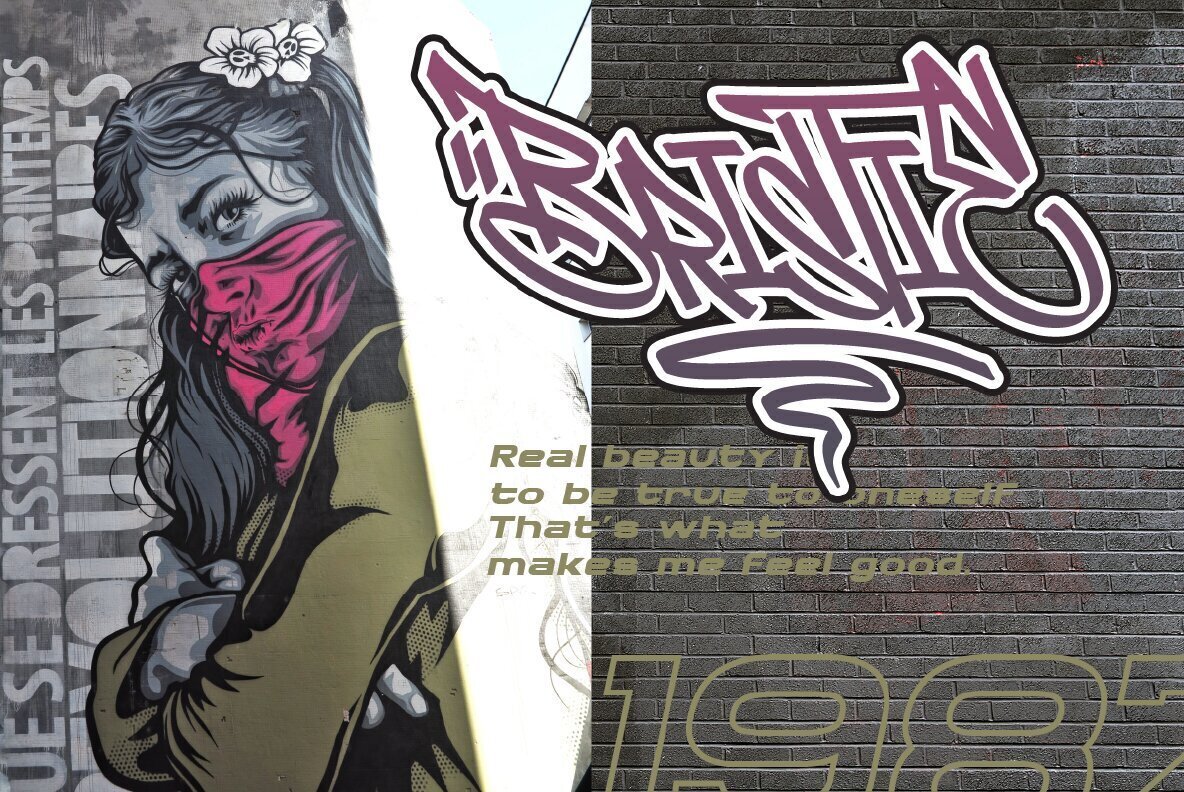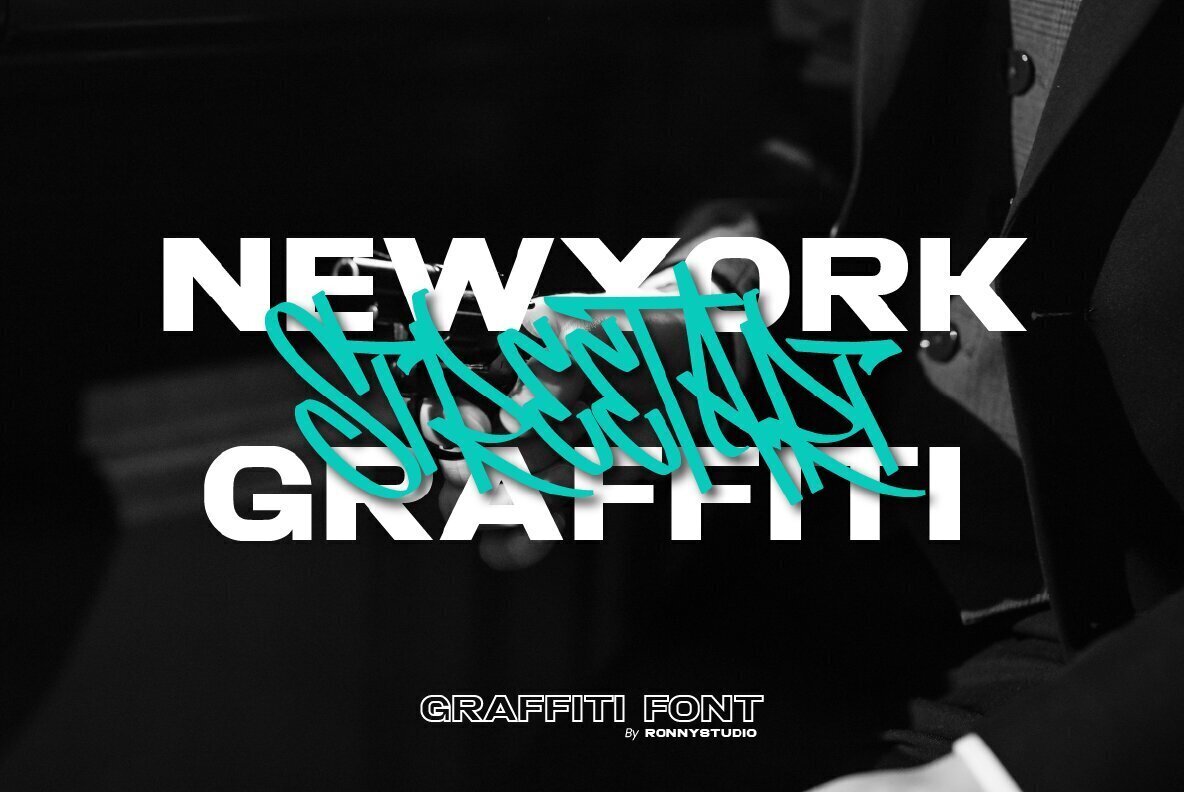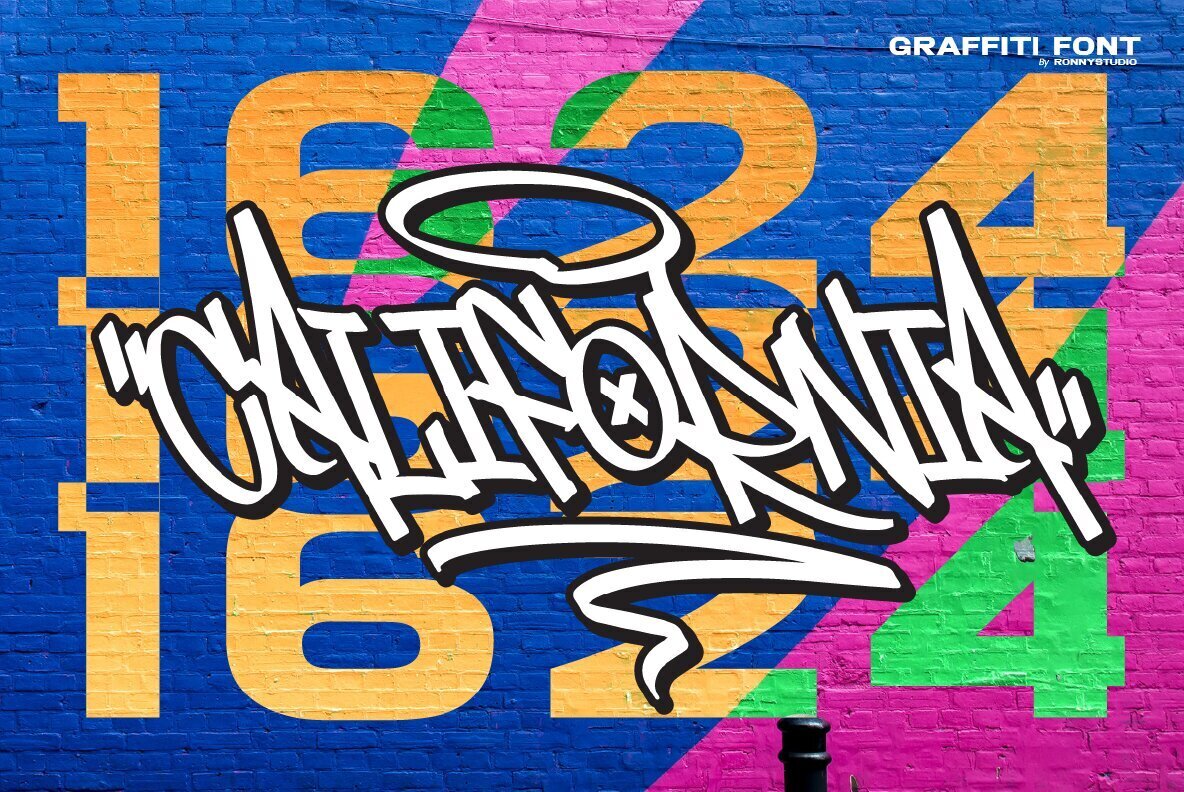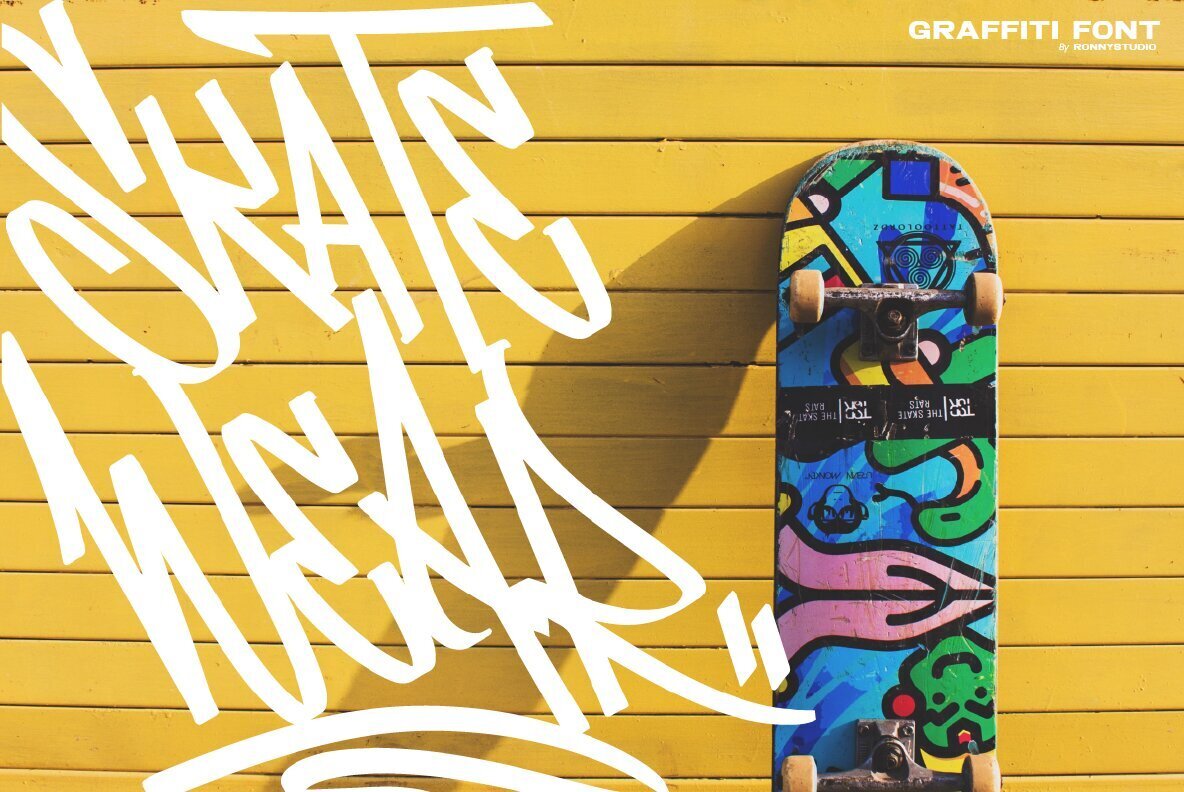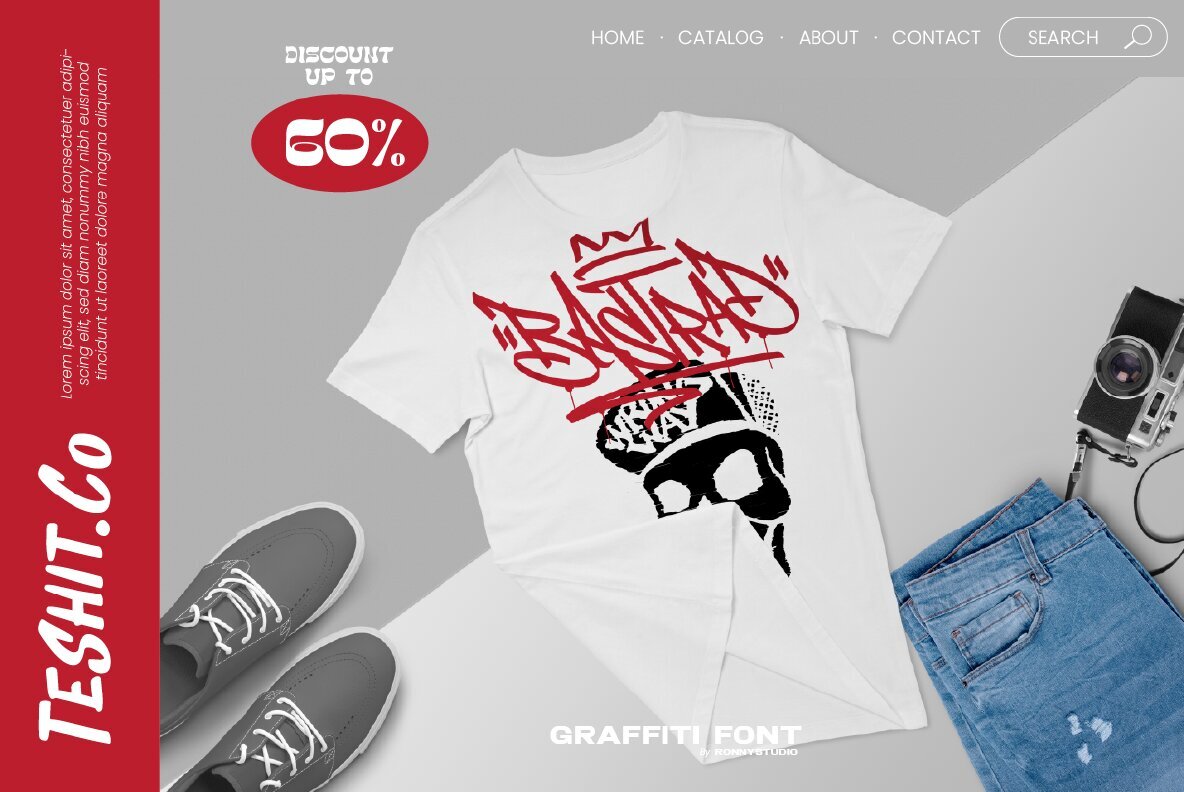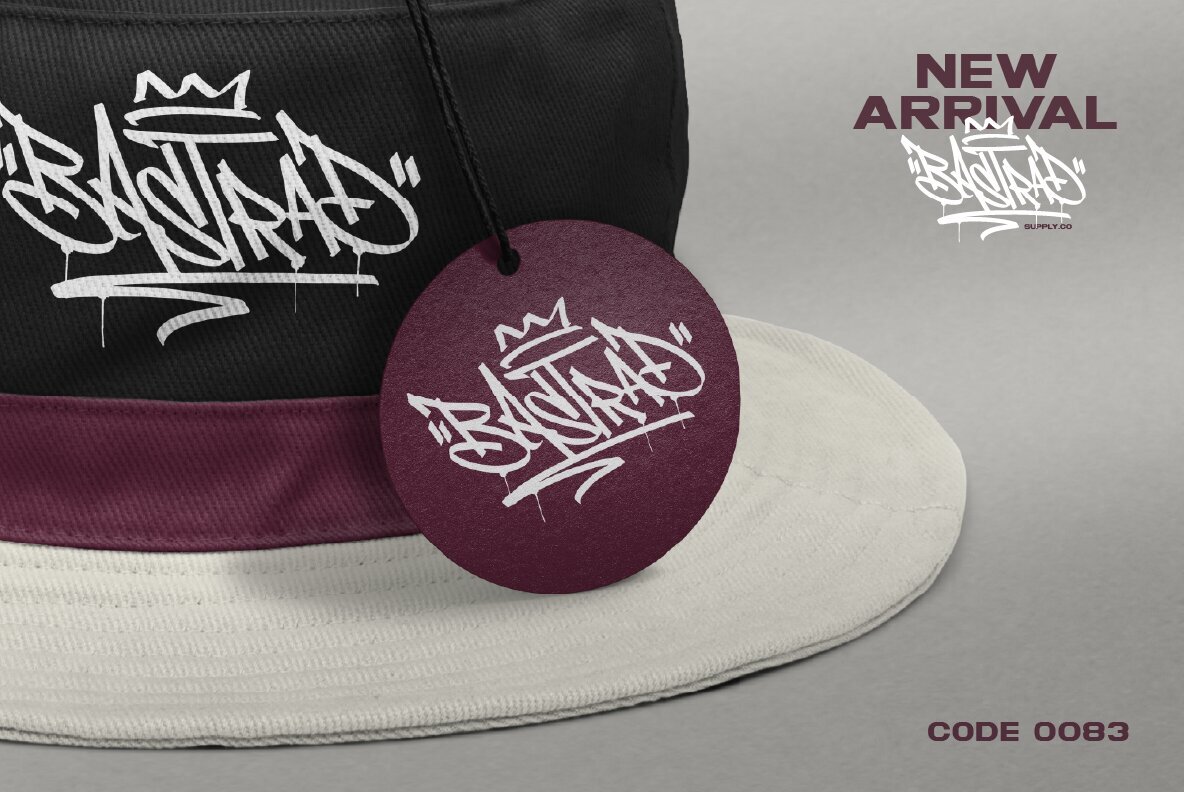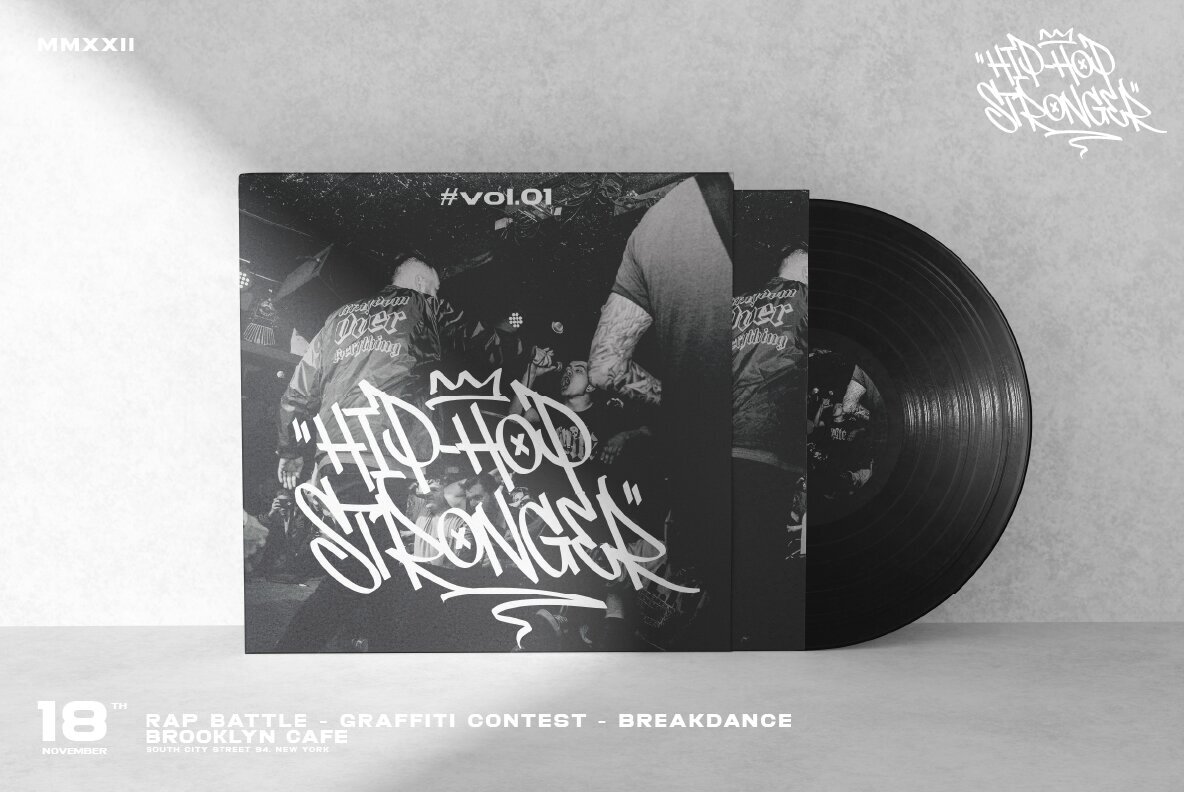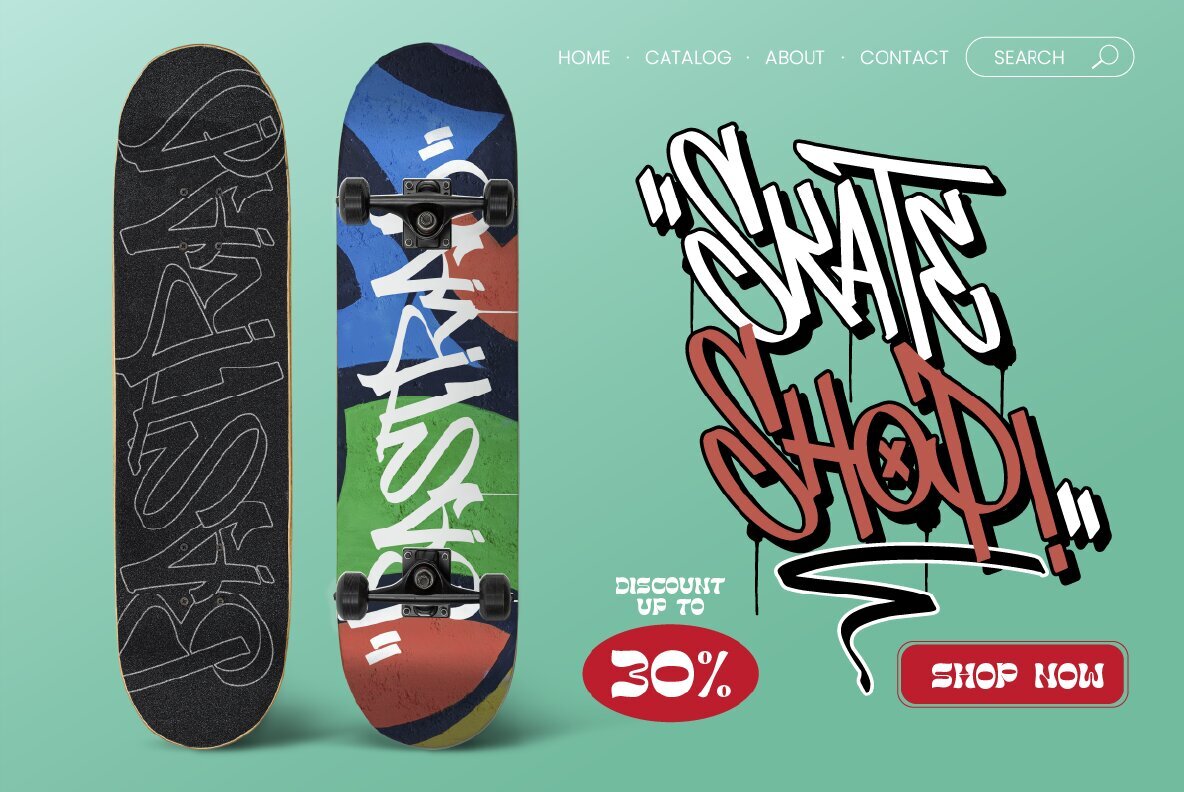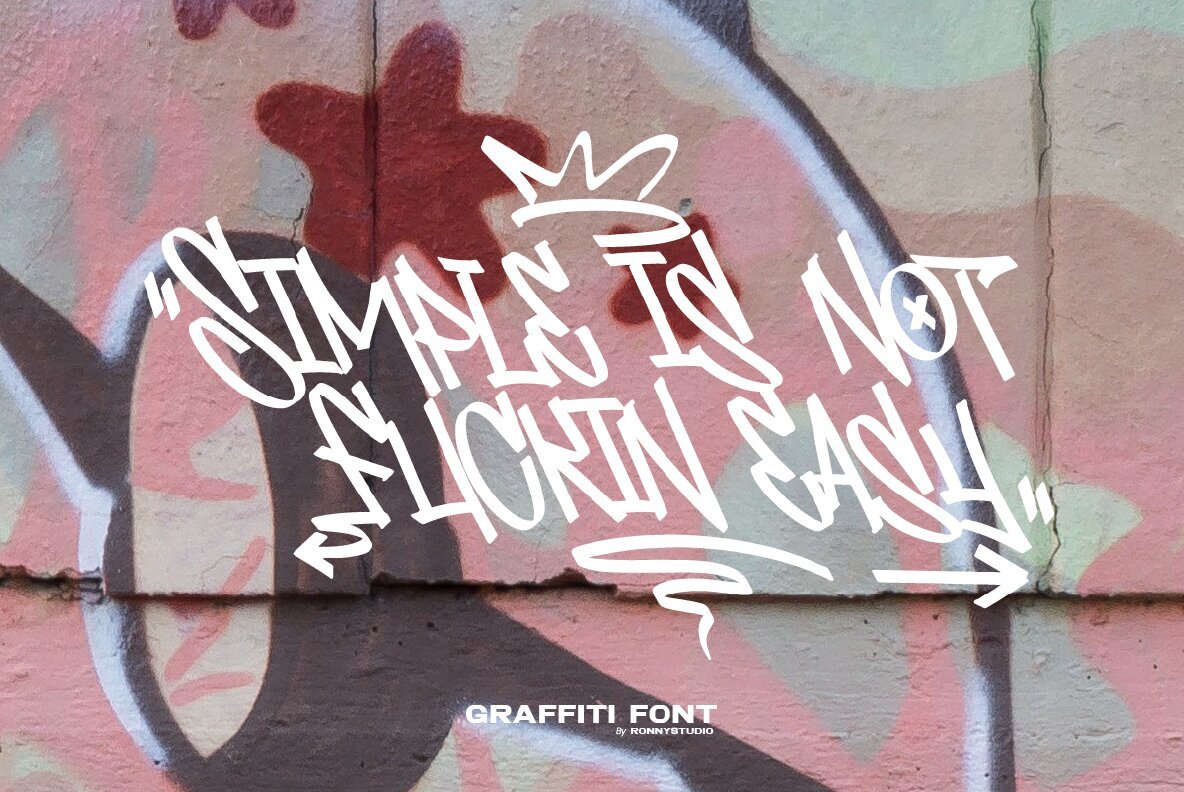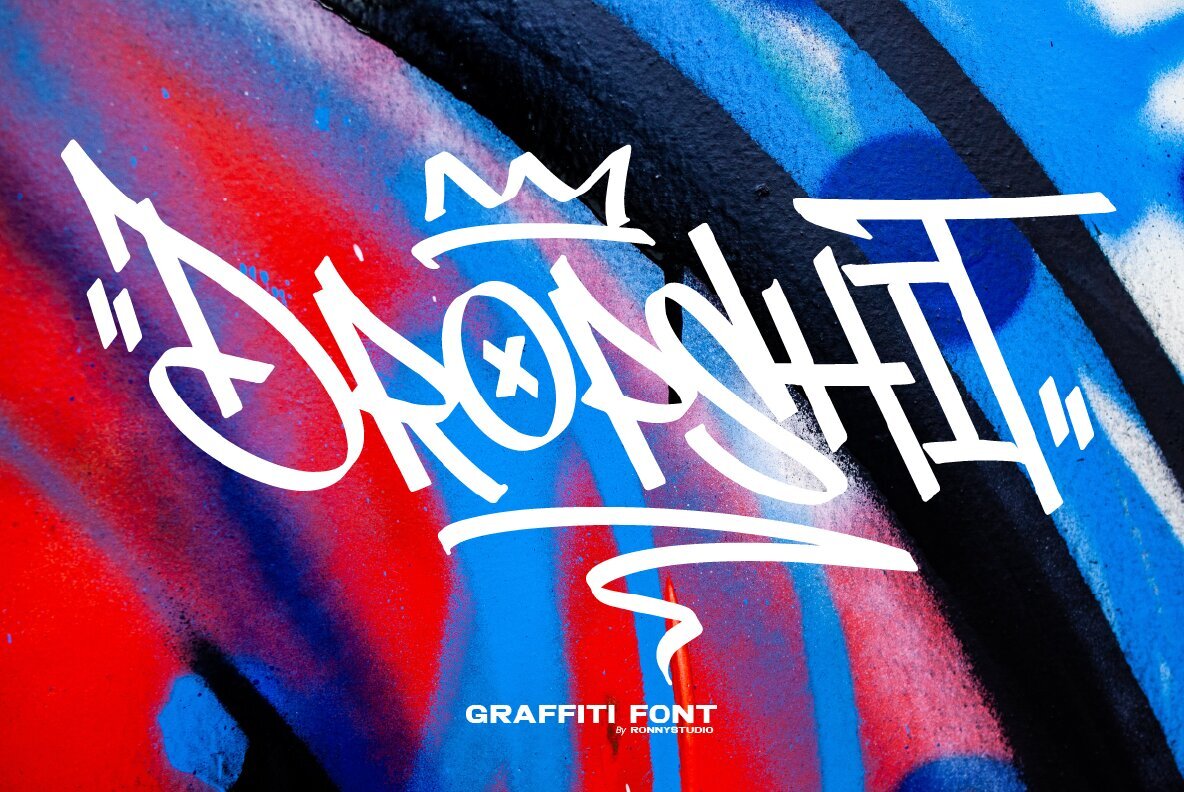
Bastrad Vol 02 1
Bastrad Vol.2 is the second version of the Bastrad font. Inspired by the realistic calligraphy marking style in many big cities. This style is bolder and easier to read, perfect for your "street art" design style. I put a real graffiti experience into a computer font, I think it will be different to other fonts if you can feel it, because I've been drawing graffiti, marking and puking since I was in high school.
Bastrad Features :
- All Caps
- Numbers & Punctuation
- Swash / Ornament